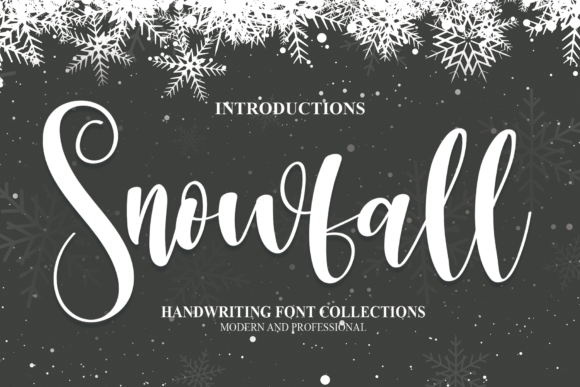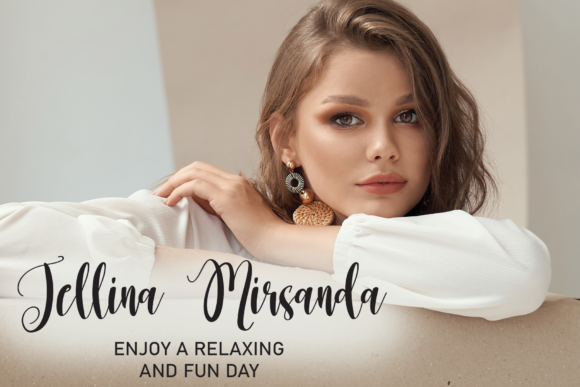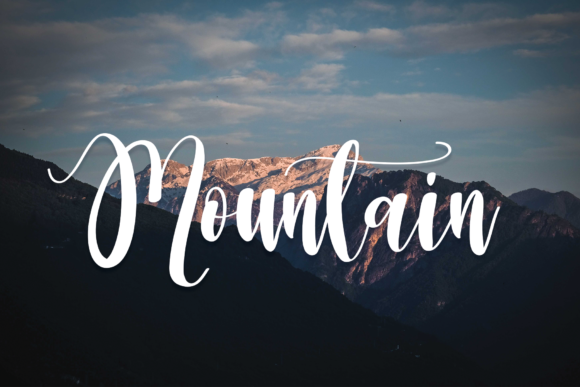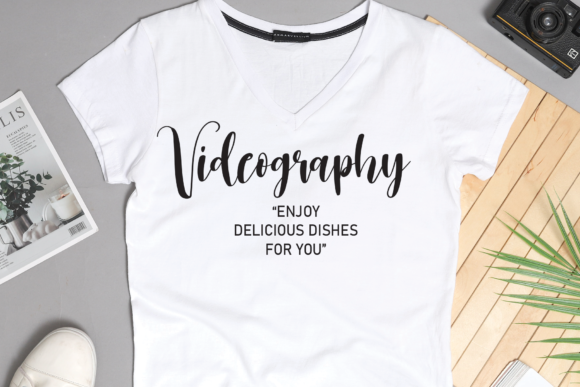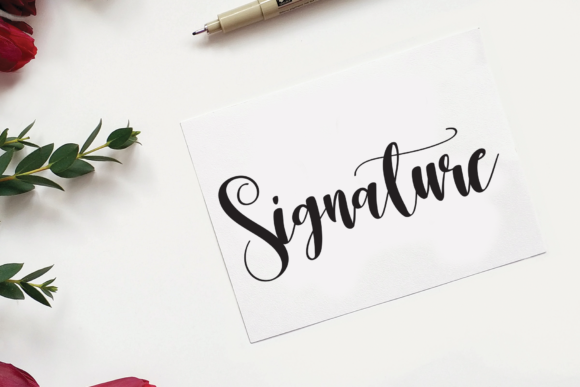
Snowfall Font
About Snowfall Font
Snowfall is a stylish and relaxed handwritten font perfect for various projects and design ideas. Use it for wall displays, wedding invitations, social media posts, logos, advertisements, product packaging, product designs, labels, photography, watermarks, invitations, stationery, and any project that requires a handwritten taste.